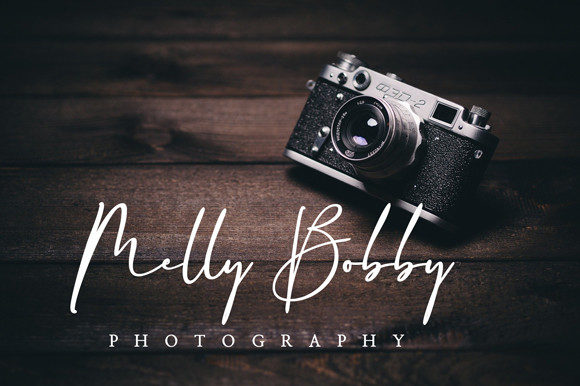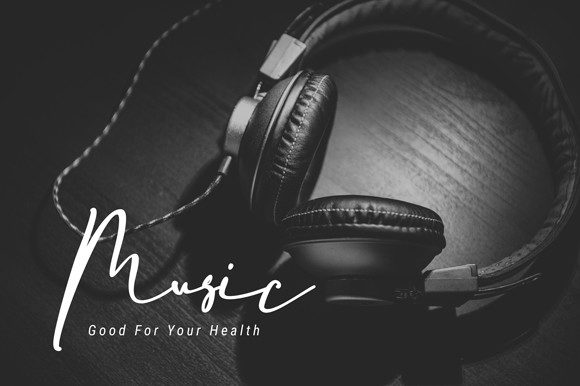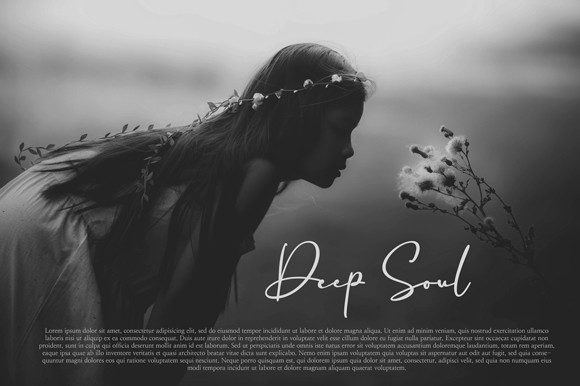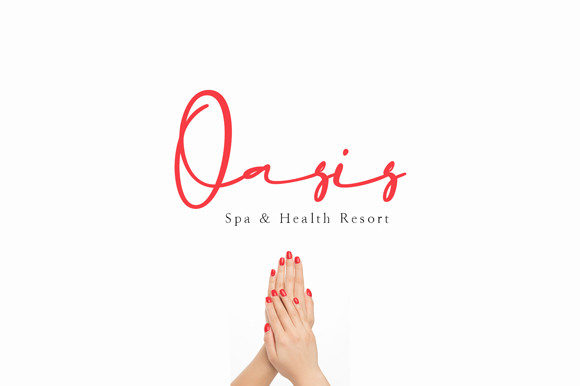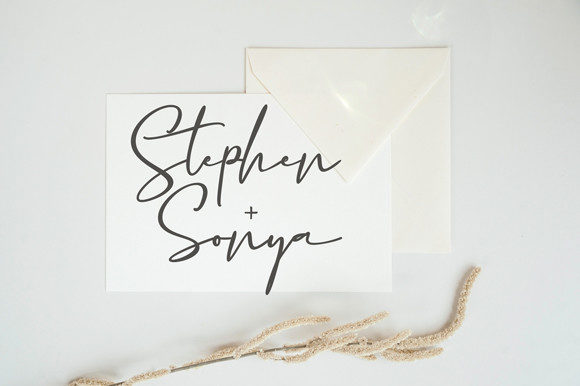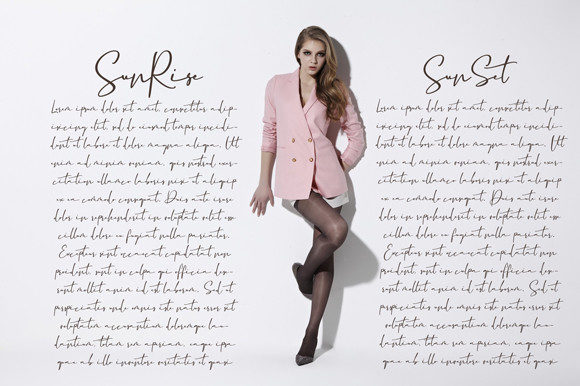
About Theodon Joytone Font
Theodon Joytone is a fashionable and delicate script font that exudes style and elegance. With its clean, thin, and smooth vibe, this font is perfect for adding a touch of sophistication to any design project. Whether you’re working on logos, branding, invitations, stationery, or social media posts, Theodon Joytone will be a hit and make your designs stand out.
The clean and thin letterforms of Theodon Joytone give it a modern and contemporary look. Each letter is meticulously crafted with attention to detail, resulting in a font that is both visually pleasing and highly legible. The smooth curves and flowing strokes of the font create a sense of elegance and grace, making it ideal for designs that require a refined and delicate touch.
One of the standout features of Theodon Joytone is its PUA encoding, which allows easy access to all of the glyphs and swashes. This means you can easily customize your typography and add decorative elements to enhance your designs. The wide range of stylistic alternates and ligatures available in the font give you the creative freedom to experiment and create unique compositions.
Whether you’re designing a wedding invitation, a logo for a luxury brand, or a social media post that needs a touch of sophistication, Theodon Joytone is a versatile choice that will elevate your designs. Its fashionable and delicate style is sure to make a lasting impression and captivate your audience.
In summary, Theodon Joytone is a fashionable and delicate script font that adds a touch of sophistication and elegance to your designs. Its clean, thin, and smooth vibe is perfect for a wide range of design projects. With its PUA encoding, you have easy access to all of the glyphs and swashes, allowing you to customize and enhance your typography. Embrace Theodon Joytone and create stunning designs that leave a lasting impression.